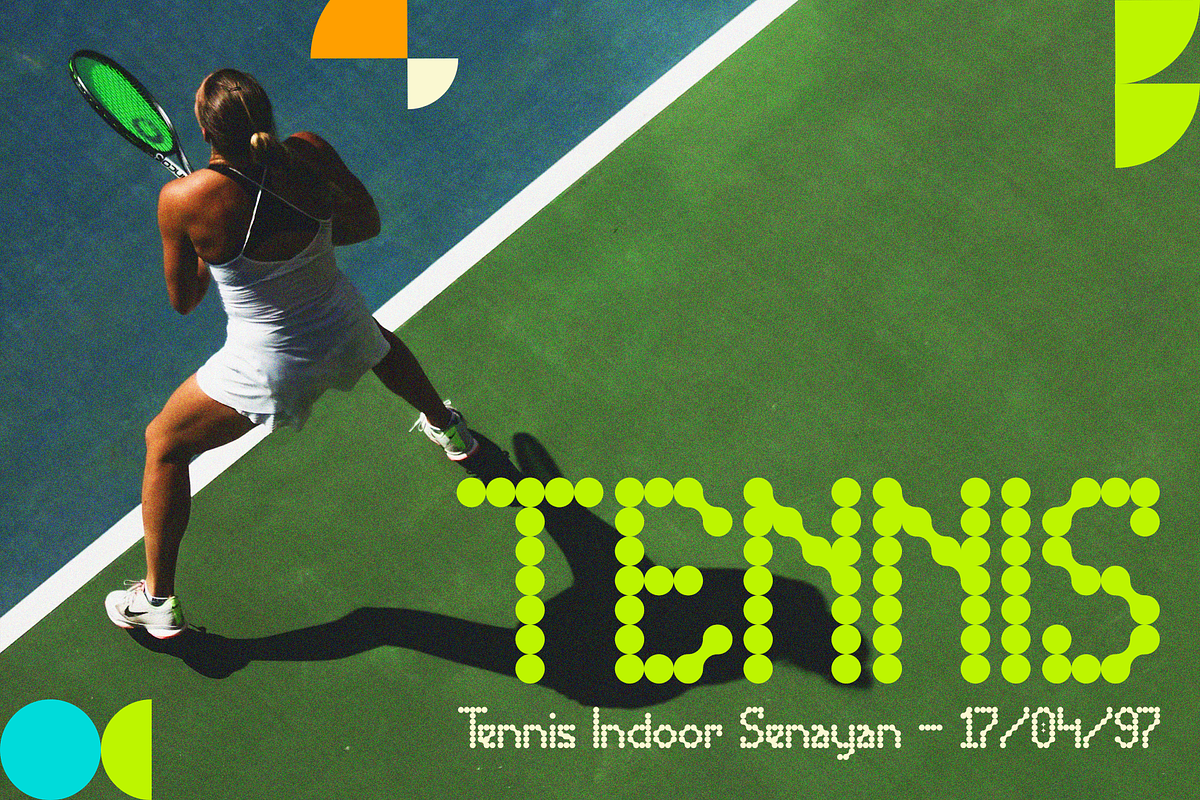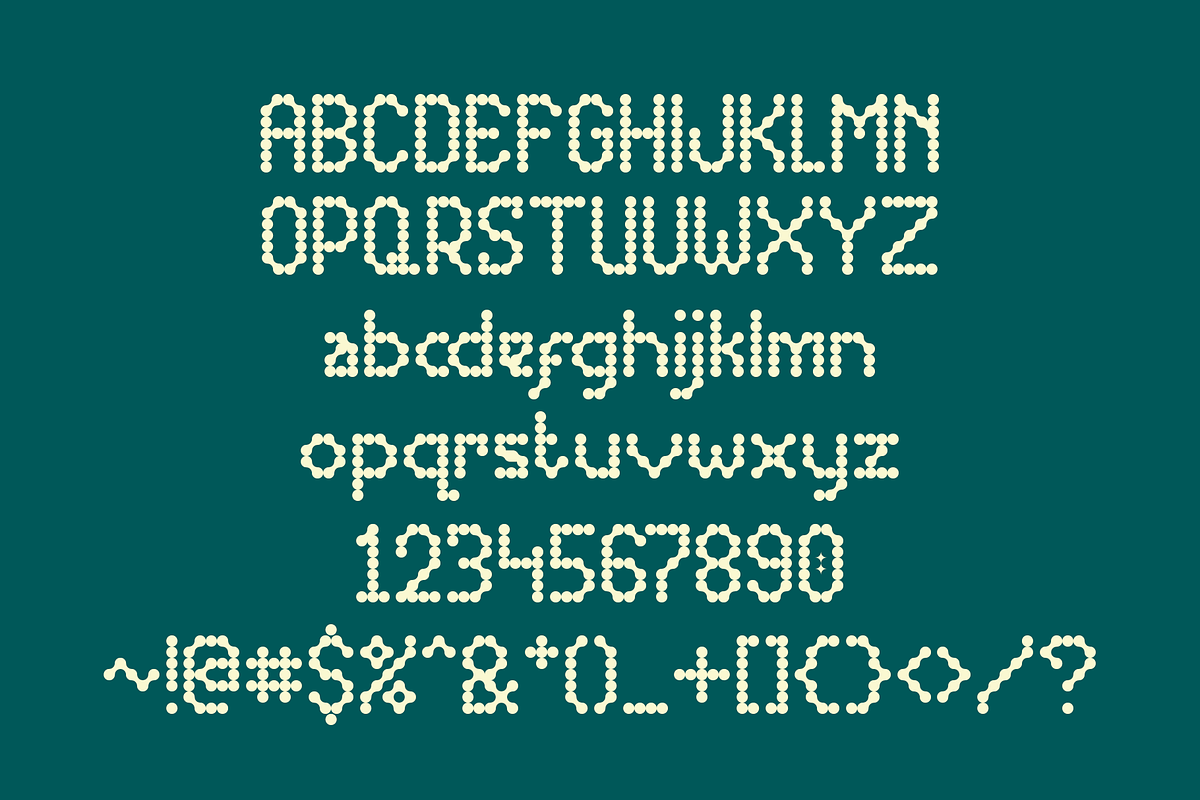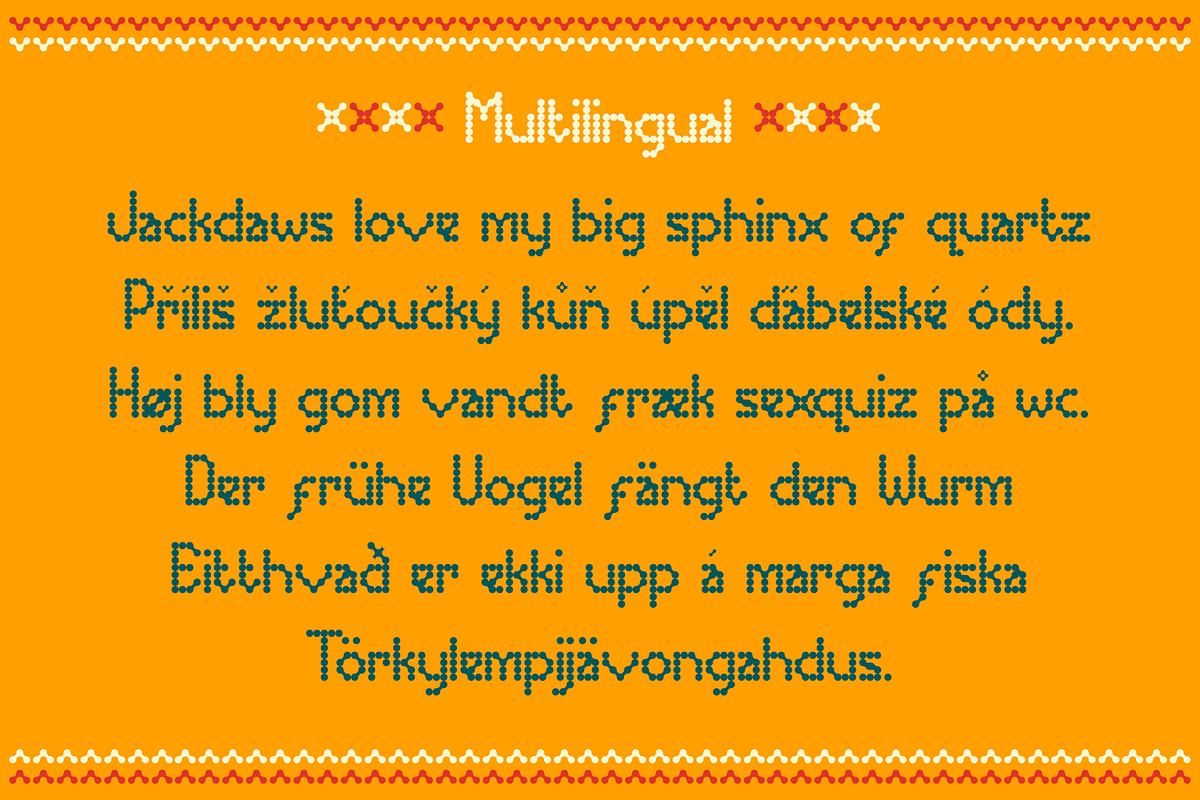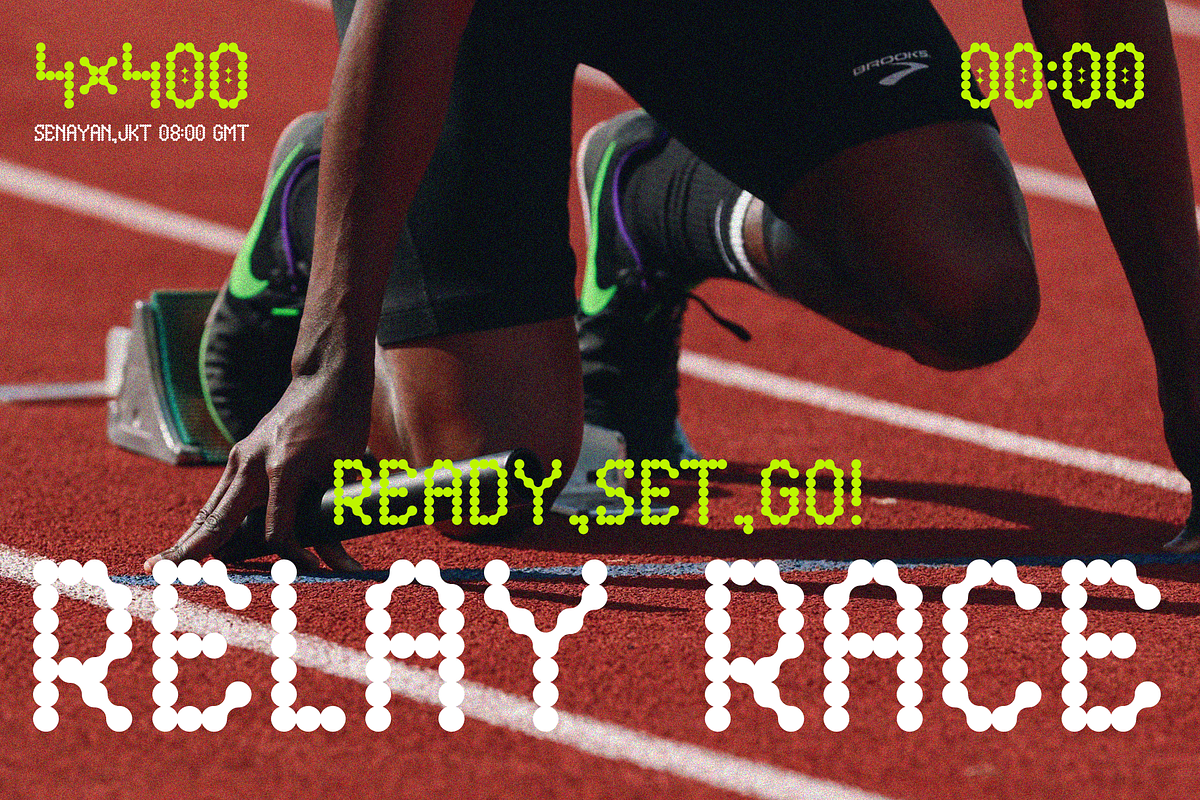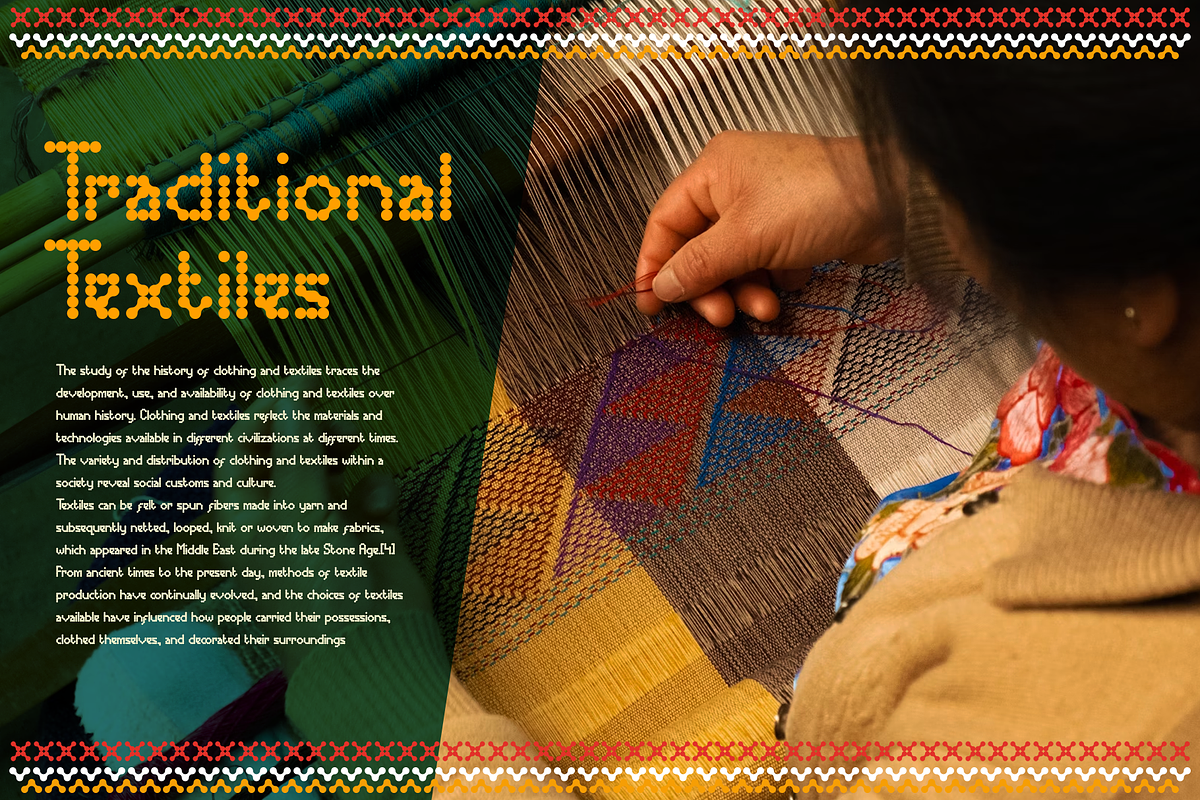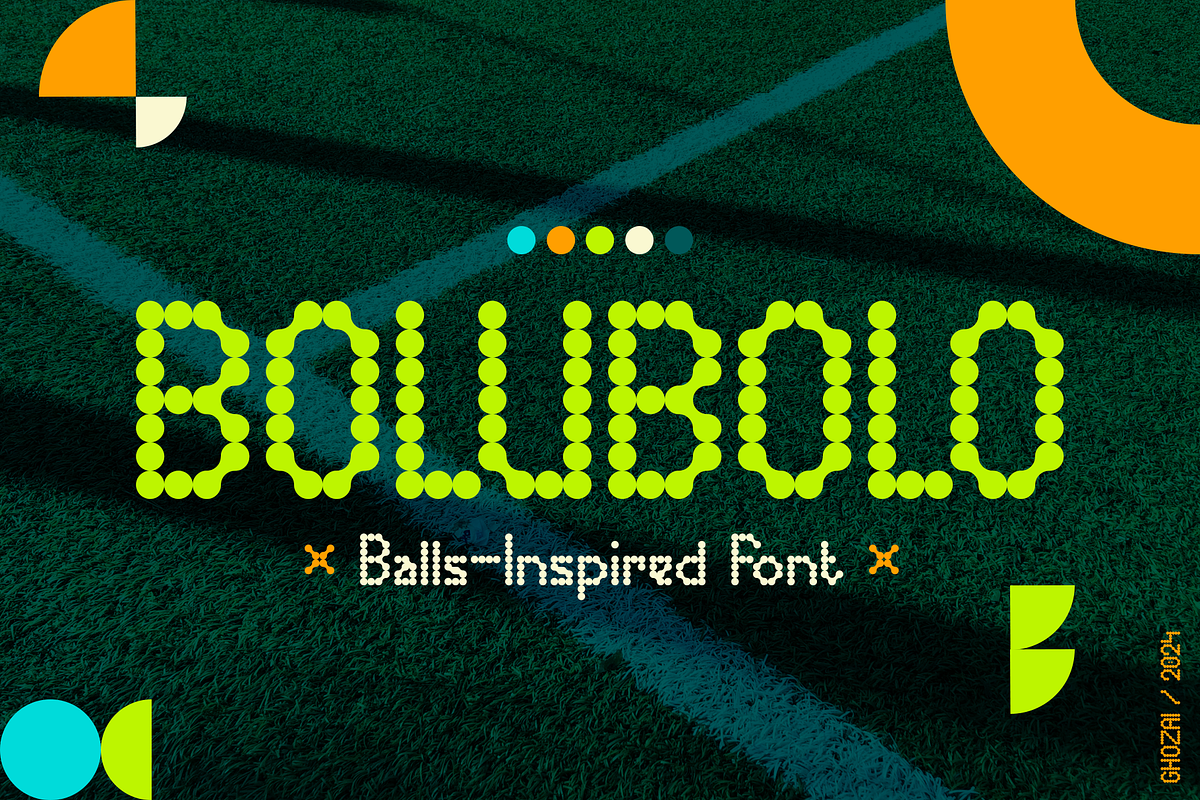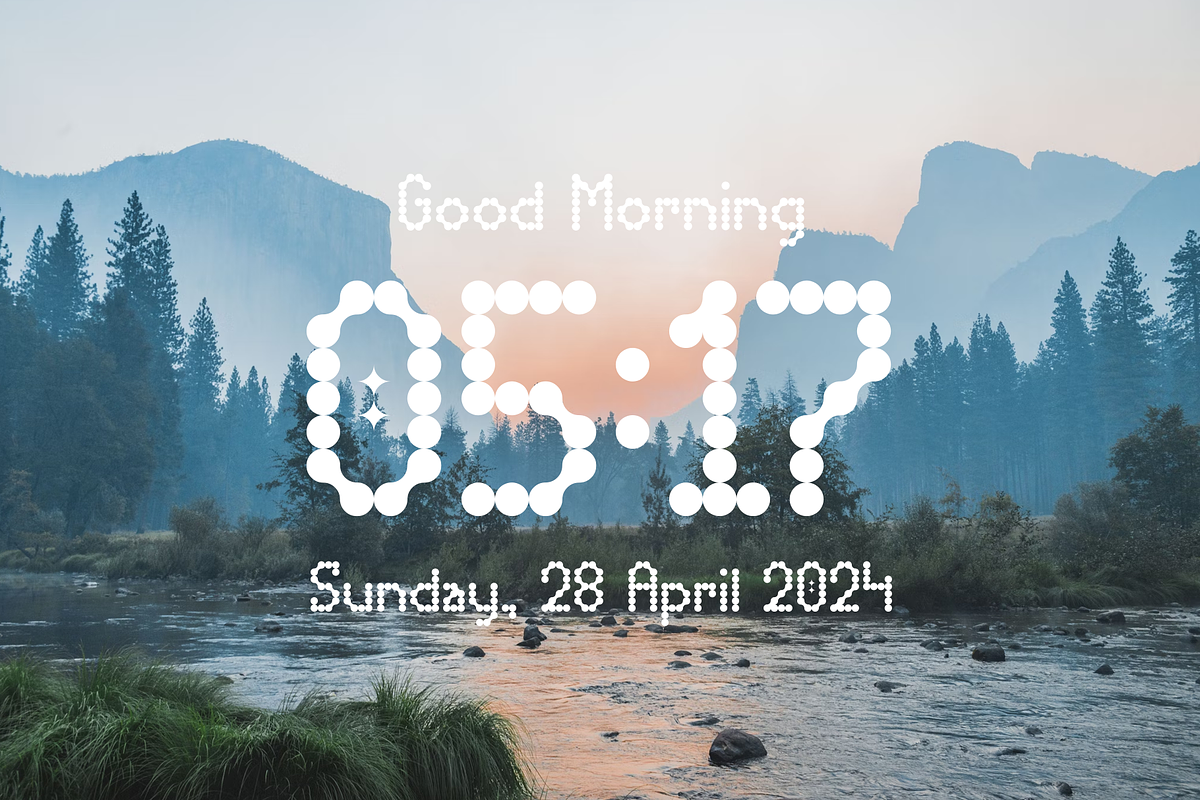
BoluBolo
BoluBolo is clean font inspired by ball and circle shape. Suitable for any purpose, such as apps, technology, sport, fashion, logo/branding, and many more.
Packed with 300+ glyphs (multilingual characters included)